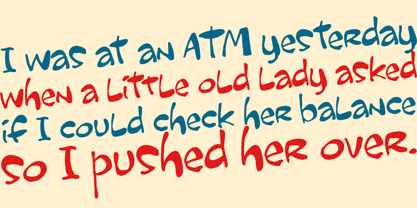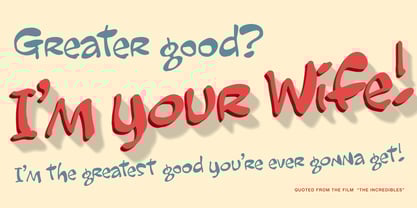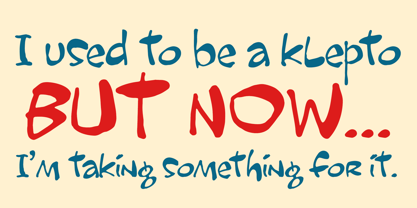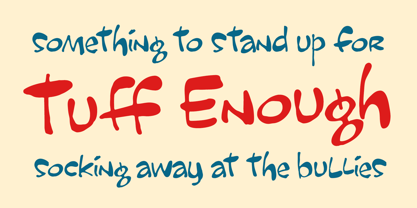
Tuff Enough PB
von Pink Broccoli
Die Schriftfamilie Tuff Enough PB wurde von Brian J. Bonislawsky, Phil Bracco entworfen und von Pink Broccoli veröffentlicht. Tuff Enough PB enthält 1 Stile.
Tuff Enough PB is a lively brush-inspired handwritten font based on a wonderfully loose piece of 1970s greeting card lettering. Its casual inked strokes and slightly uneven rhythm give the typeface a raw, hand-drawn personality that feels spontaneous and full of charm. The offbeat weight shifts and expressive forms create a natural handwritten flow, while a collection of double-letter ligatures adds extra typographic playfulness when typesetting longer phrases. Tuff Enough PB is perfect for greeting cards, playful branding, posters, craft projects, and designs that call for expressive hand-lettered energy.